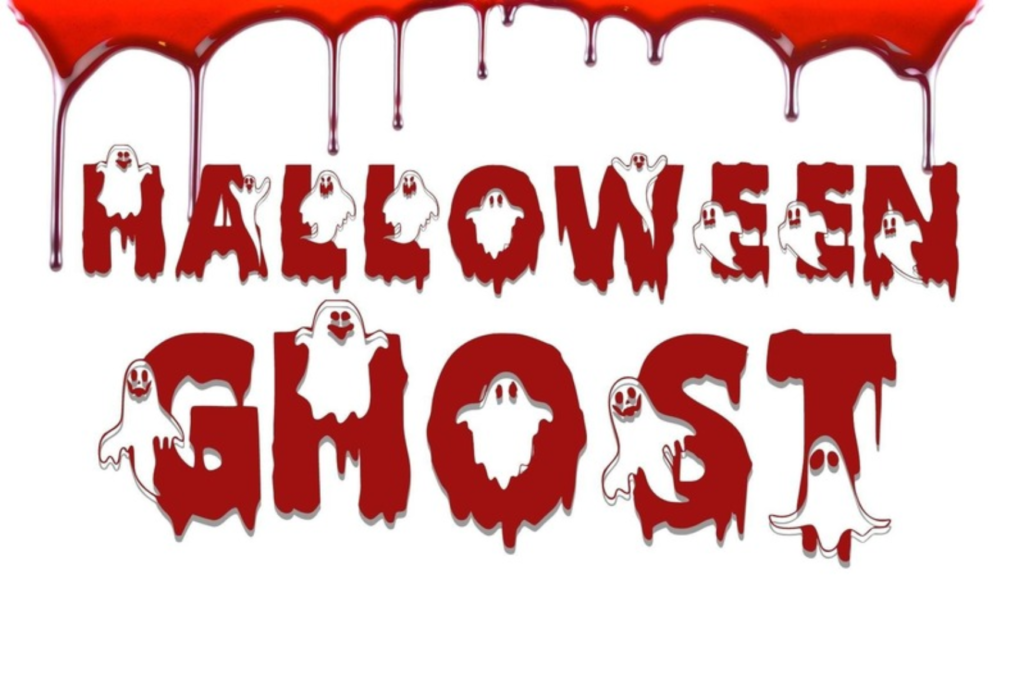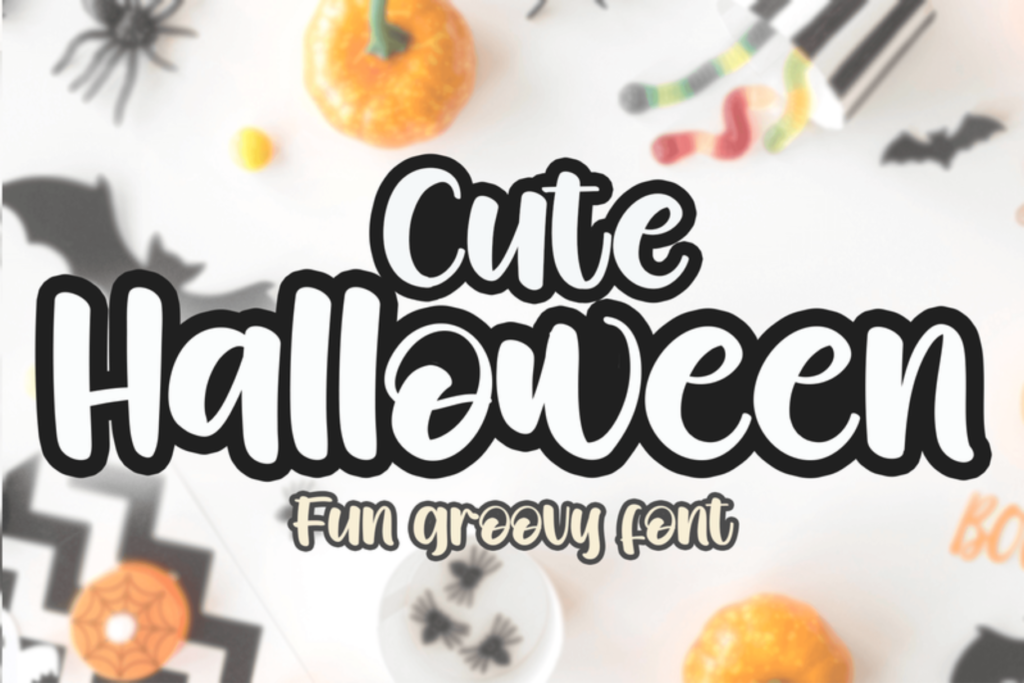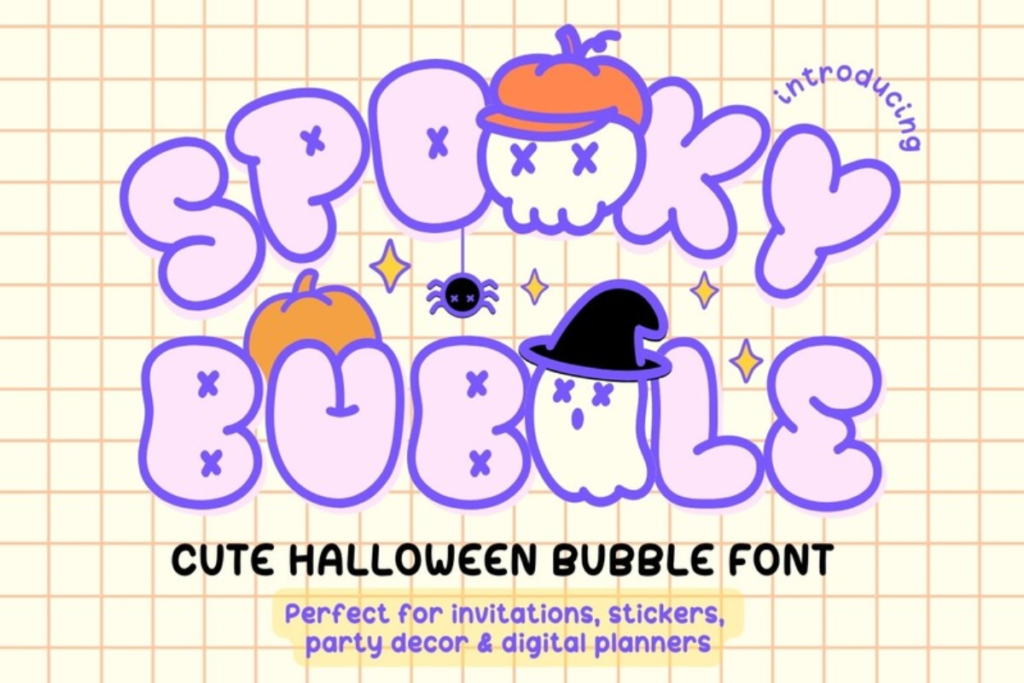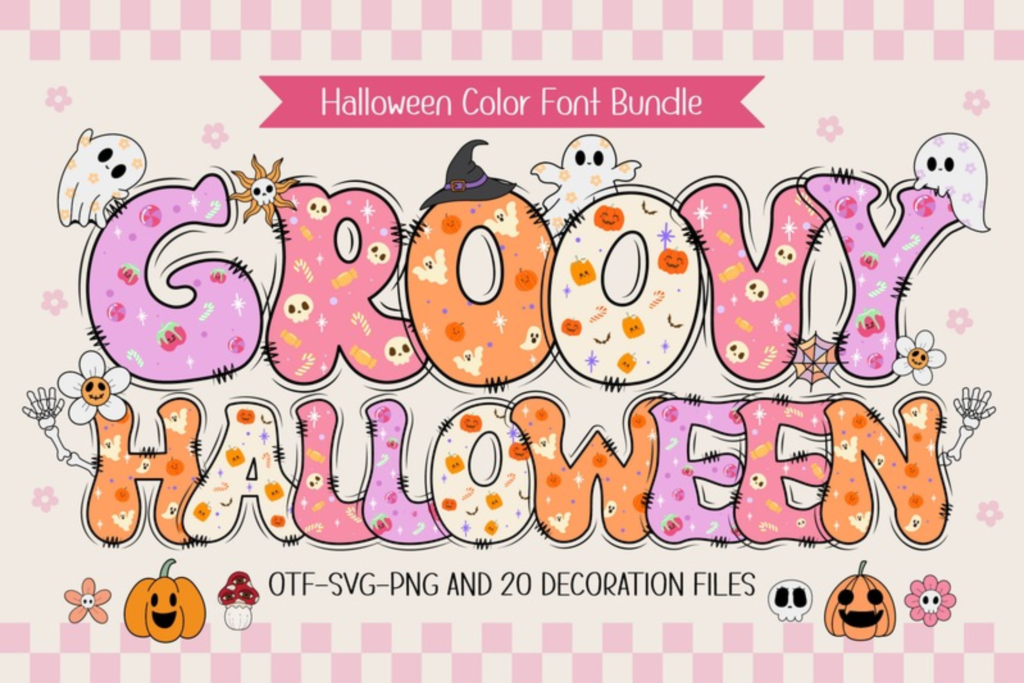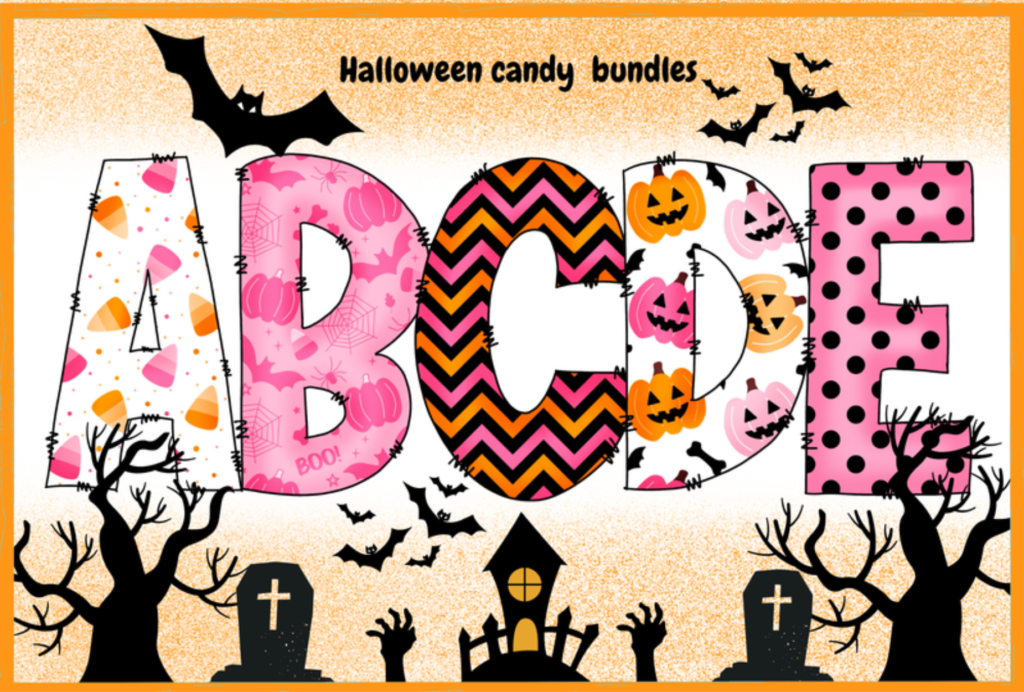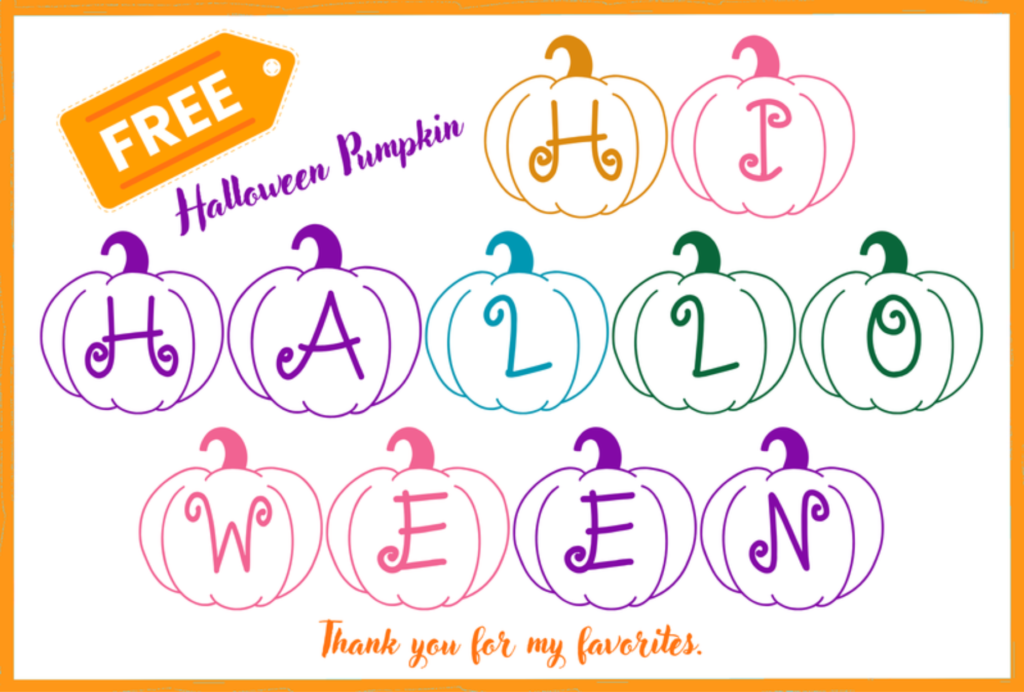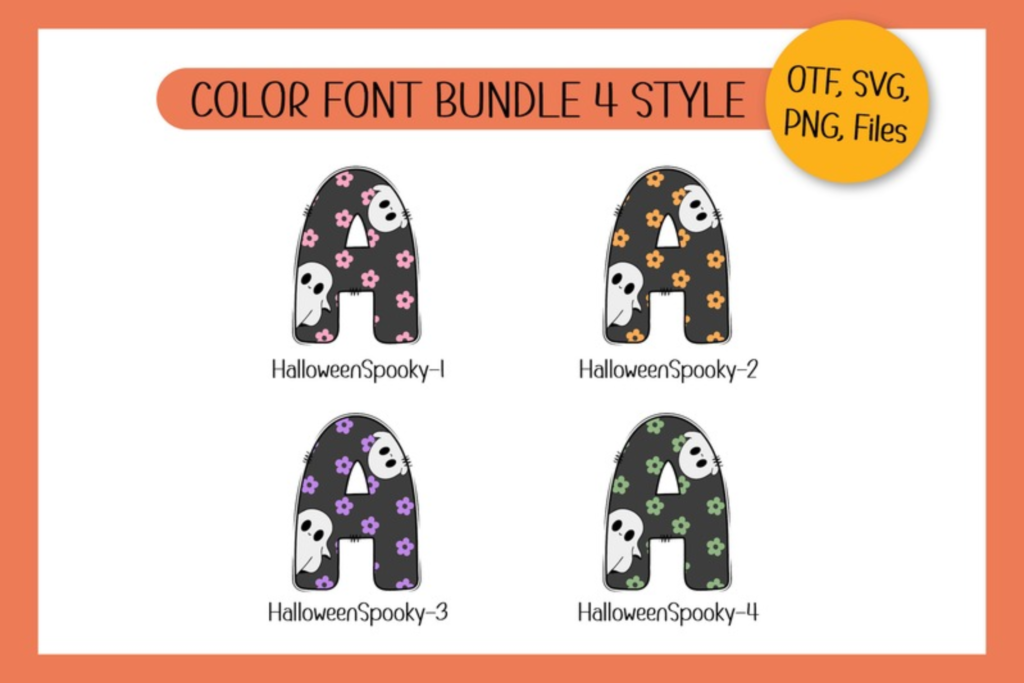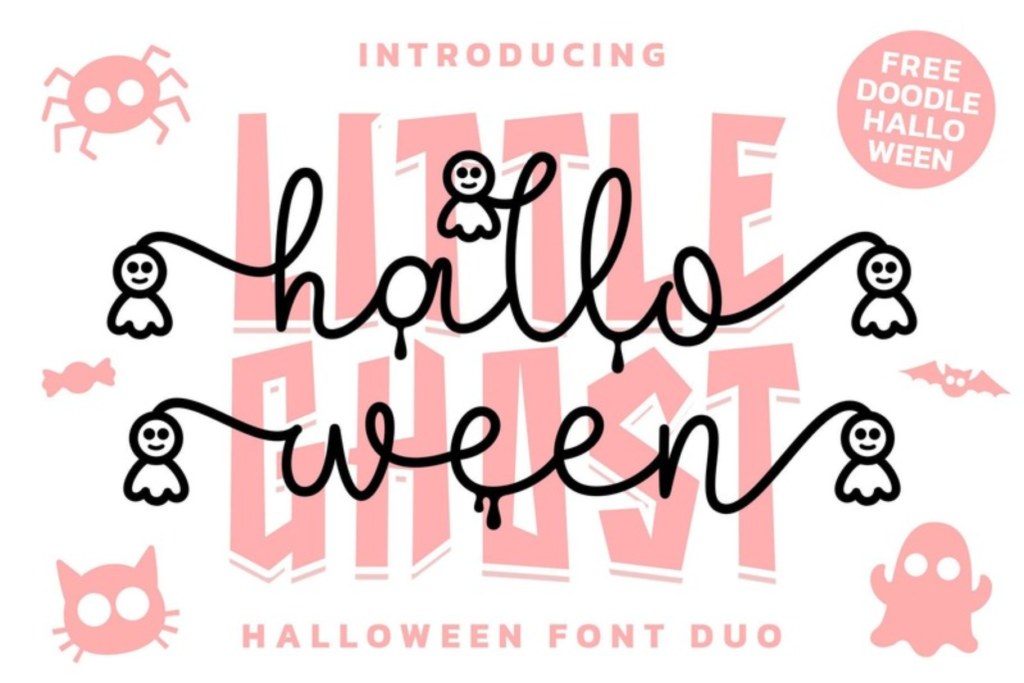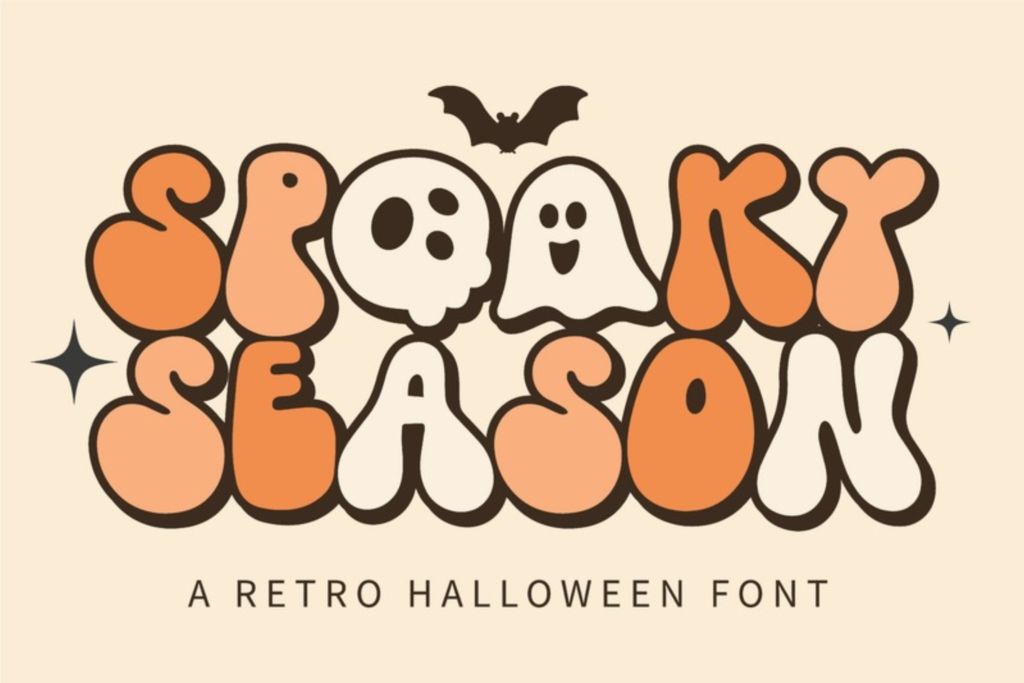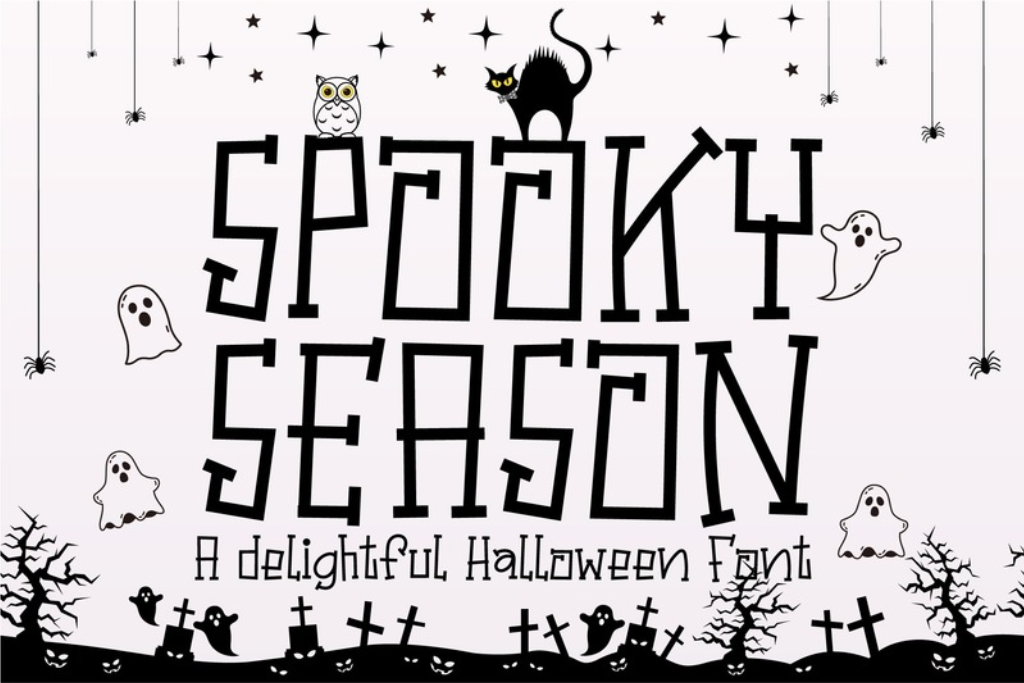
Spooky-cute typography guide
Halloween typography does not have to be dripping with blood or covered in sharp gothic edges. Cute Halloween fonts mix just enough spooky personality with playful shapes, friendly ghosts, pumpkins, candy-inspired letters, bouncy handwriting and retro curves.
This collection is built for party invitations, Cricut crafts, stickers, shirts, classroom projects, treat bags, social graphics and seasonal decorations. You will find bubbly, handwritten, groovy and illustrated styles, plus practical notes on where each one works best.
Quick Picks: The Cutest Halloween Fonts
25 Best Cute Halloween Fonts
Best Overall
1. Halloween Ghost — NN-Font Design
Cute ghost-decorated lettering gives Halloween headlines a friendly spooky personality without pushing into horror.
Best Retro
2. Cute Halloween — Black line
Chunky retro shapes give this font a cheerful October personality that works naturally with pumpkins and warm autumn graphics.
Best Bubble
3. Spooky Bubble — narinari32
Bubbly display lettering keeps the spooky theme playful and readable for kid-friendly seasonal graphics.
Best Groovy
4. Groovy Halloween — Issie_Studio
A groovy retro direction brings playful movement to Halloween layouts and works especially well with bold seasonal color palettes.
Best Candy Style
5. Halloween Candy — Itme_digitalart
Candy-inspired decorative lettering makes the type itself a strong visual element for playful Halloween projects.
Best Pumpkin
6. Halloween Pumpkin — Itme_digitalart
Pumpkin-themed lettering delivers an immediate October look without needing much extra decoration around the headline.
Best Multi-Style
7. Halloween Spooky — Issie_Studio
A playful spooky display style gives seasonal projects plenty of character while remaining friendly enough for cute Halloween designs.
Best Duo Style
8. Halloween Ghost Duo — Hoperative Design
This ghost-themed duo gives you a coordinated Halloween look that can add more variation to matching seasonal designs.
Best Spooky-Cute
9. Spooky Season — BitongType
Irregular display lettering adds spooky energy while staying playful enough for friendly seasonal designs.
Best Character Style
10. Spooky Season — Nobu Collections
Friendly seasonal character makes this a strong choice when you want the typography itself to carry the Halloween mood.
Best Party Headline
11. Happy Halloween — Bassoonartwork
A cheerful Halloween display style works well for prominent seasonal messages where readability and personality both matter.
Best Friendly Display
12. Happy Halloween — Graphix Line Studio
A friendly seasonal display option for projects that need an unmistakable Halloween headline without looking too dark.
Best Script
13. Halloween Script — AEN Creative Studio
A seasonal script introduces movement and a softer handmade mood into a collection dominated by chunky display lettering.
Best Mini Headline
14. Cute Boo — KtwoP
Cute Boo is useful for short friendly ghost-themed headlines that need more charm than menace.
Best for BOO Designs
15. Boo!! Halloween — KtwoP
A compact seasonal display choice for punchy phrases where BOO needs to do most of the visual work.
Best Sweet & Playful
16. Halloween Candy — vividdiy8
A candy-themed Halloween style keeps the mood bright and playful for family-friendly seasonal designs.
Best Chunky
17. Halloween Candy — KtwoP
Substantial decorative strokes stay visible on busy layouts and give short Halloween phrases plenty of weight.
Best Soft Handwritten
18. Cute Halloween — pinkmeca
A softer cute-Halloween direction works when the illustration should carry most of the seasonal detail.
Best Iconic Cute
19. Cute Halloween — Nongyao
Playful seasonal details make this a strong choice for unmistakably Halloween-themed but friendly lettering.
Best Friendly Ghost
20. Halloween Ghost — Nyla.studio
A ghost-led seasonal display style is ideal when the Halloween theme should read instantly at a glance.
Best for Stickers
21. Halloween Ghost — PraewDesigns
Decorative ghost character gives short phrases and names enough personality for compact sticker designs.
Best Fresh Pumpkin
22. Halloween Pumpkin — FreshTypeINK
A pumpkin-focused Halloween display style is useful for warm, playful October projects that need a clear seasonal cue.
Best Cozy Pumpkin
23. Pumpkin Halloween — Black line
A playful pumpkin-season look bridges Halloween and autumn for designs that should feel warm rather than eerie.
Best Seasonal Phrase
24. Spooky Season — andikastudio
A dedicated Spooky Season display style is a natural fit for October quotes and products built around the season’s most popular phrase.
Best Simple Ghost Pick